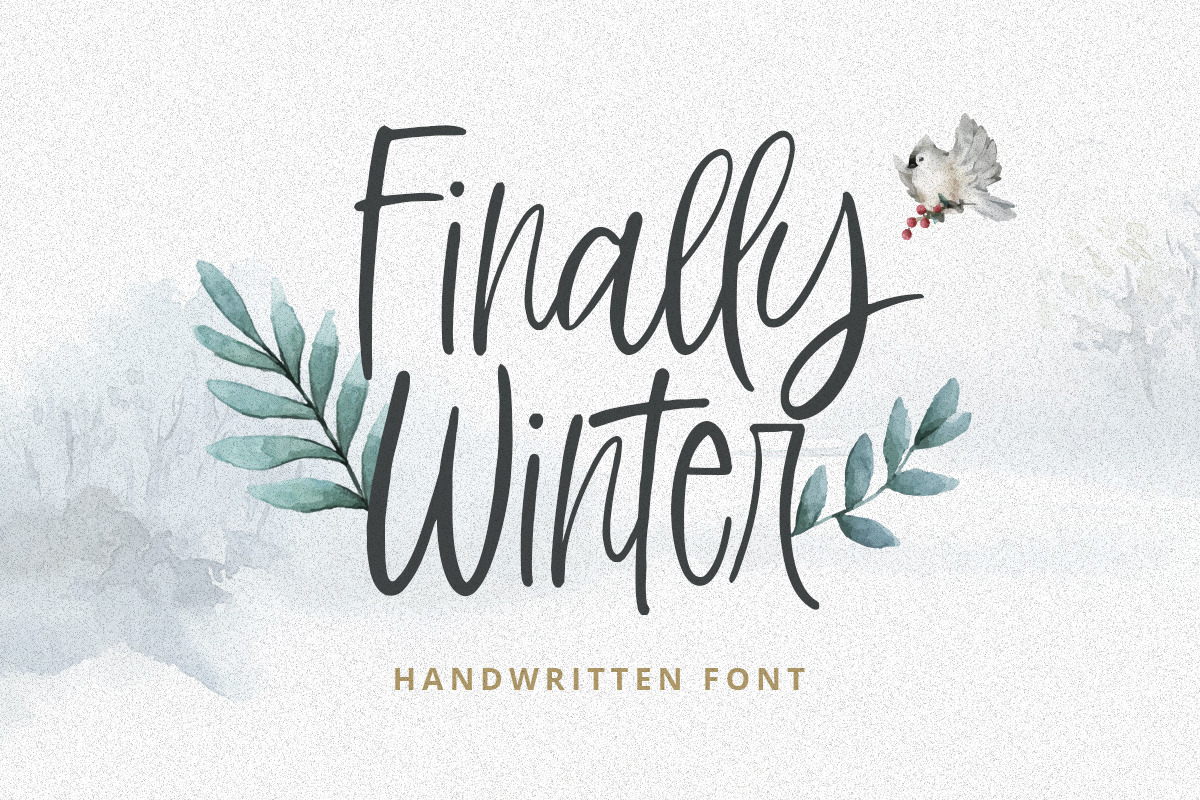
Finally Winter - handwritten font
Introducing, Finally Winter! finally winter is a natural handwritten font that is perfect for quotes, branding, packaging, wedding, etc. This font is comes in uppercase, lowercase, punctuation, symbols, numerals, ligatures, etc also support multilingual.